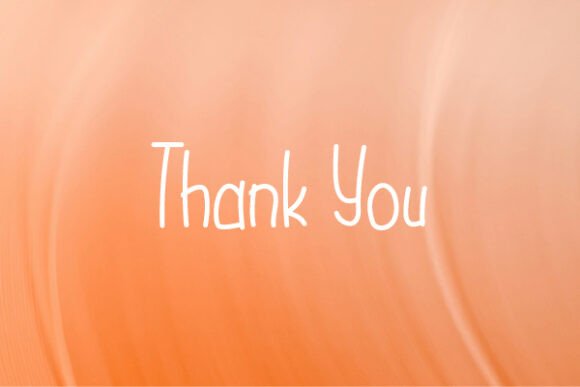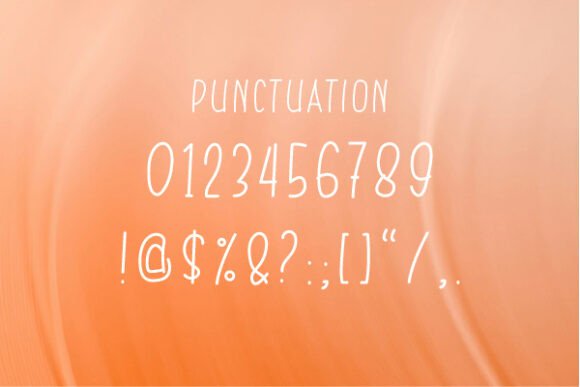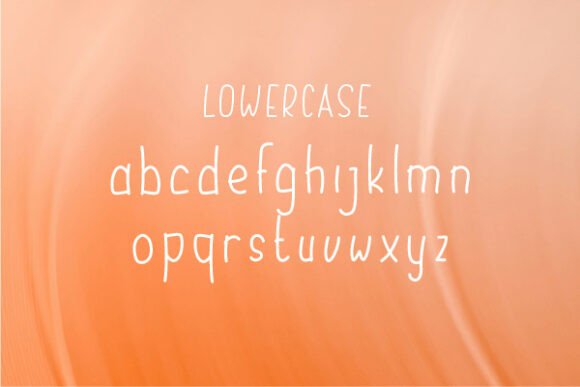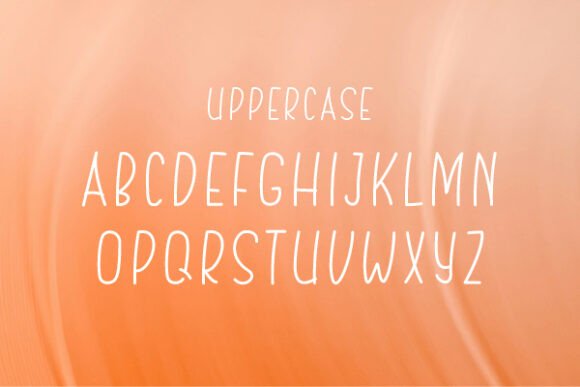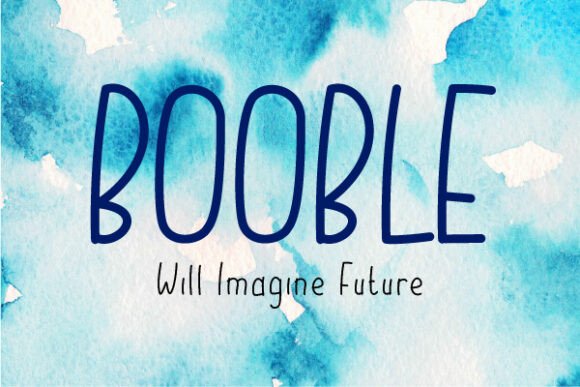
Introducing Booble Font: The Perfect Handwritten Sans Serif Font for Your Creative Projects
Are you tired of using the same old fonts for your creative projects? Look no further! Booble Font is here to add a touch of personality and whimsy to your designs. This enjoy handwritten sans serif font is perfect for crafters, designers, and anyone looking to add a relaxed vibe to their work. In this article, we’ll dive into the features and benefits of Booble Font, and explore how you can use it to bring your DIY projects to life.
What is Booble Font?
Booble Font is a unique and charming handwritten sans serif font, designed to bring a sense of fun and playfulness to your designs. Its casual and relaxed style makes it perfect for a wide range of projects, from back to school materials and wedding invitations to party decorations and social media posts.
Key Features of Booble Font
- Handwritten Sans Serif Font: Booble Font boasts a beautiful, handwritten sans serif style that’s both modern and approachable.
- Easy to Read: The font is clear and easy to read, making it perfect for body text, headings, and titles.
- Versatile: Booble Font can be used for a wide range of projects, from digital designs to print materials.
- Relaxed and Casual: The font’s relaxed and casual style makes it perfect for adding a touch of personality to your designs.
How to Use Booble Font in Your Projects
Booble Font is perfect for a wide range of creative projects, including:
- Back to School Materials: Add a playful touch to your back to school designs, such as flyers, posters, and worksheets.
- Wedding Invitations: Use Booble Font to create beautiful and unique wedding invitations that set the tone for your special day.
- Party Decorations: Add a touch of whimsy to your party decorations, such as banners, garlands, and DIY decor.
- Social Media Posts: Use Booble Font to create engaging and eye-catching social media posts that stand out from the crowd.
- Blogs and Websites: Add a personal touch to your blog or website with Booble Font, perfect for headings, titles, and body text.
Why Choose Booble Font?
With so many fonts to choose from, why should you choose Booble Font? Here are just a few reasons:
- Unique and Eye-Catching: Booble Font is a one-of-a-kind font that’s sure to grab attention and add a touch of personality to your designs.
- Versatile: Booble Font can be used for a wide range of projects, from digital designs to print materials.
- High-Quality: The font is designed to high-quality standards, ensuring that it looks great in any design.
| Font Name | Booble Font |
| Author | sidikdibyo |